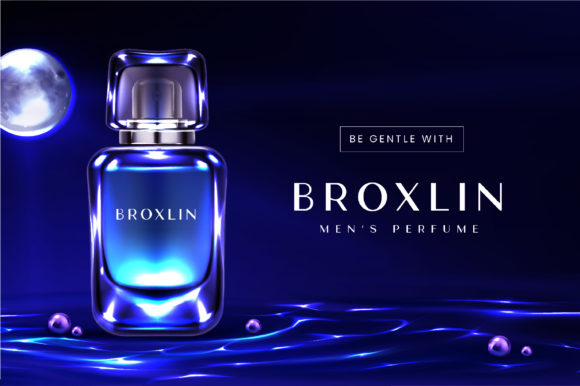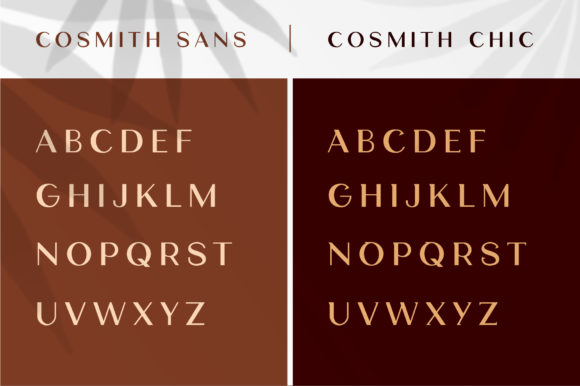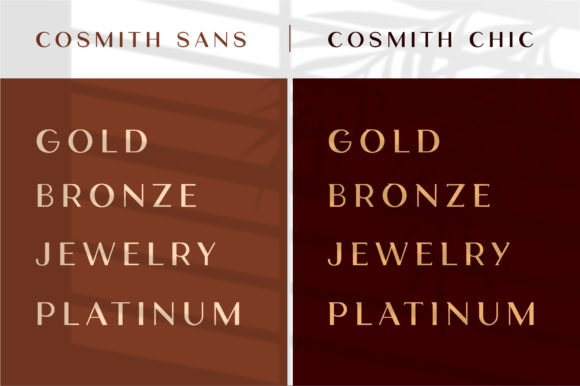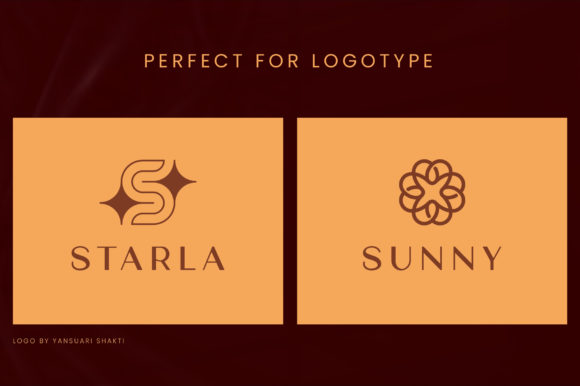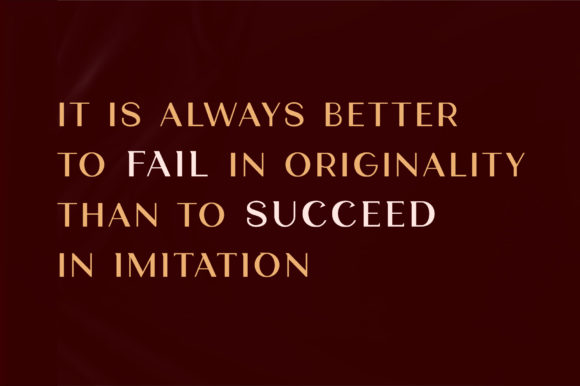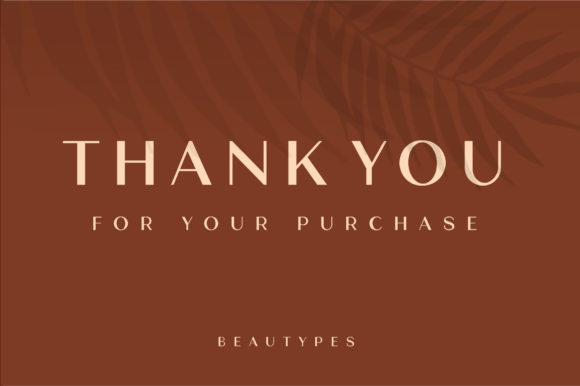
Introduction to Cosmith Font
Cosmith is a simple and elegant duo font (serif and sans serif).
It is the best choice for creating eye catching logos, branding and quotes .
Key Features of Cosmith Font